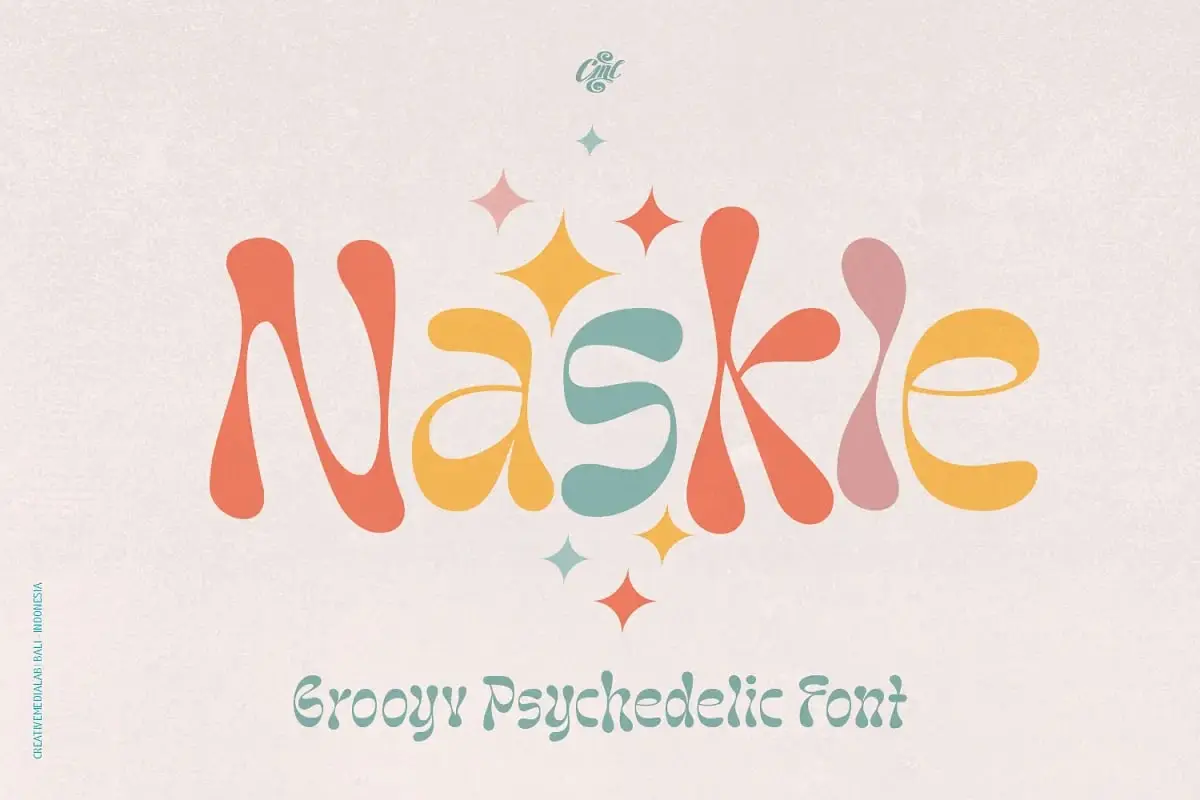
Hey there, creative soul! 👋 Are you ready to dive into a treasure trove of typography and design magic? The Brushespack Collection Part 138 has just dropped, and it’s absolutely packed with stunning fonts and assets that will make your next project pop like never before. 🚀
Whether you’re a graphic designer, a branding guru, or just someone who loves to play with letters, this lineup is a goldmine. From groovy retro vibes to sleek modern serifs, there’s something here for every mood. Let’s explore the top 20 picks that I’m genuinely obsessed with! ✨
Why Use These Digital Assets?
These aren’t just fonts—they’re tools to tell your story. A unique typeface or design element can instantly transform a simple project into a work of art, giving it personality and depth. 🎨 Whether you’re designing a logo, building a brand, or crafting social media graphics, these assets save you time while adding that “wow” factor.
Top 20 Digital Assets From Collection 138
Ex Libris
Kicking things off with pure elegance! 🌟 Ex Libris is a sophisticated digital design asset that screams “luxury.” Perfect for book covers, high-end branding, or any project that needs a touch of class.
Dr-Vorga Display (C) Daniel Reed
Get ready to stand out! 🔥 This display font by Daniel Reed is bold, modern, and impossible to ignore. Ideal for posters, headlines, or anything that needs a commanding presence.
Bucky Peach By Vani Jain
How fun is this name?! 🍑 Bucky Peach is a playful, modern design asset that brings a smile to any project. Perfect for youthful branding or quirky social media graphics.
Céleri-Modern Serif
Ooh la la! 🥖 This modern serif is the epitome of timeless elegance. The Céleri-Modern Serif is a must-have for editorial design, luxury branding, and chic invitations.
Block Marys-Blocky Display Sans
Need something bold and sturdy? 💪 This blocky display sans is a powerhouse for headlines and street-style designs. It’s modern, strong, and full of character!
Buncher Georgia Font
A classic with a twist! 🏛️ The Buncher Georgia Font blends traditional serif charm with a fresh, modern edge. It’s incredibly versatile for logos, print, and web design.
Arrogant Font By Carmen Nácher
Confident, sleek, and just a little bit sassy! 😏 The Arrogant Font lives up to its name with a striking, contemporary look that’s perfect for fashion and luxury brands.
Alna Font
Clean, minimalist, and oh-so-versatile. ✨ Alna Font is the Swiss Army knife of typefaces—perfect for everything from corporate branding to sleek web interfaces.
Znak Mono By Frongile
Coders and designers, unite! 🖥️ Znak Mono is a crisp, modern monospaced font that looks amazing in UI designs, tech branding, or even minimalist posters.
Zsófia Bányai-Zimra Typeface
Elegance in every curve! 🌹 This typeface is a work of art with smooth, distinctive letterforms that shine in print and digital media. A true collector’s item.
Murs Gothic Wide Dark By Maksym Kobuzan
Dark, wide, and totally dramatic! 🖤 This gothic-style font is perfect for impactful headlines, music posters, or any project that demands attention.
Vanosky Font By Jorge Villarreal
Beauty in simplicity! 🕊️ The Vanosky Font features elegant curves and a modern vibe, making it a top choice for branding and web design.
Vf Reznovich By Viktor Pushkarev
Your new secret weapon! 🚀 Vf Reznovich is a meticulously crafted asset that’s versatile enough for any creative endeavor, from social media to professional presentations.
Voca Display Font
Say it loud and proud! 📣 Voca Display is a show-stopping font with unique letterforms that demand to be the center of attention. Perfect for posters and headlines.
Oc Bartok Font Family (C) Otherwherecollective Extended Latin
Versatility at its finest! 🎻 This font family supports extended Latin characters, making it perfect for international projects. Clean, modern, and incredibly flexible.
Yipianesia Dominica Bold Italic Retro Vintage
Step back in time in style! 🕰️ This bold, italic retro font is pure nostalgia. Ideal for vintage posters, t-shirt designs, or anything with a retro soul.
Nd Laterne — By Neuedeutsche
Light up your design! 🏮 Nd Laterne offers a unique, meticulously crafted aesthetic that works beautifully for branding, web design, and artistic projects.
Naskle-Groovy Psychedelic Font
Far out! 🌈 This groovy psychedelic font is bursting with personality and playful curves. Perfect for festival posters, album art, or anything that needs a fun, retro twist.
Vasek By Ilya Designgsta
Stunningly unique! 💎 Vasek is a high-resolution asset that brings a creative flair to branding, promotional materials, and social graphics. Your designs will thank you.
Zeafonts-Amovand
Saving the best for last? 🏆 Zeafonts-Amovand is an elegant, multi-lingual typeface with beautiful curves. It’s the perfect finishing touch for any modern branding project.
Frequently Asked Questions
What is Brushespack Collection Part 138?
It’s a curated selection of 20 premium digital design assets, including fonts and graphic elements, released by Brushespack. It’s perfect for graphic designers, branding experts, and creatives looking for high-quality tools.